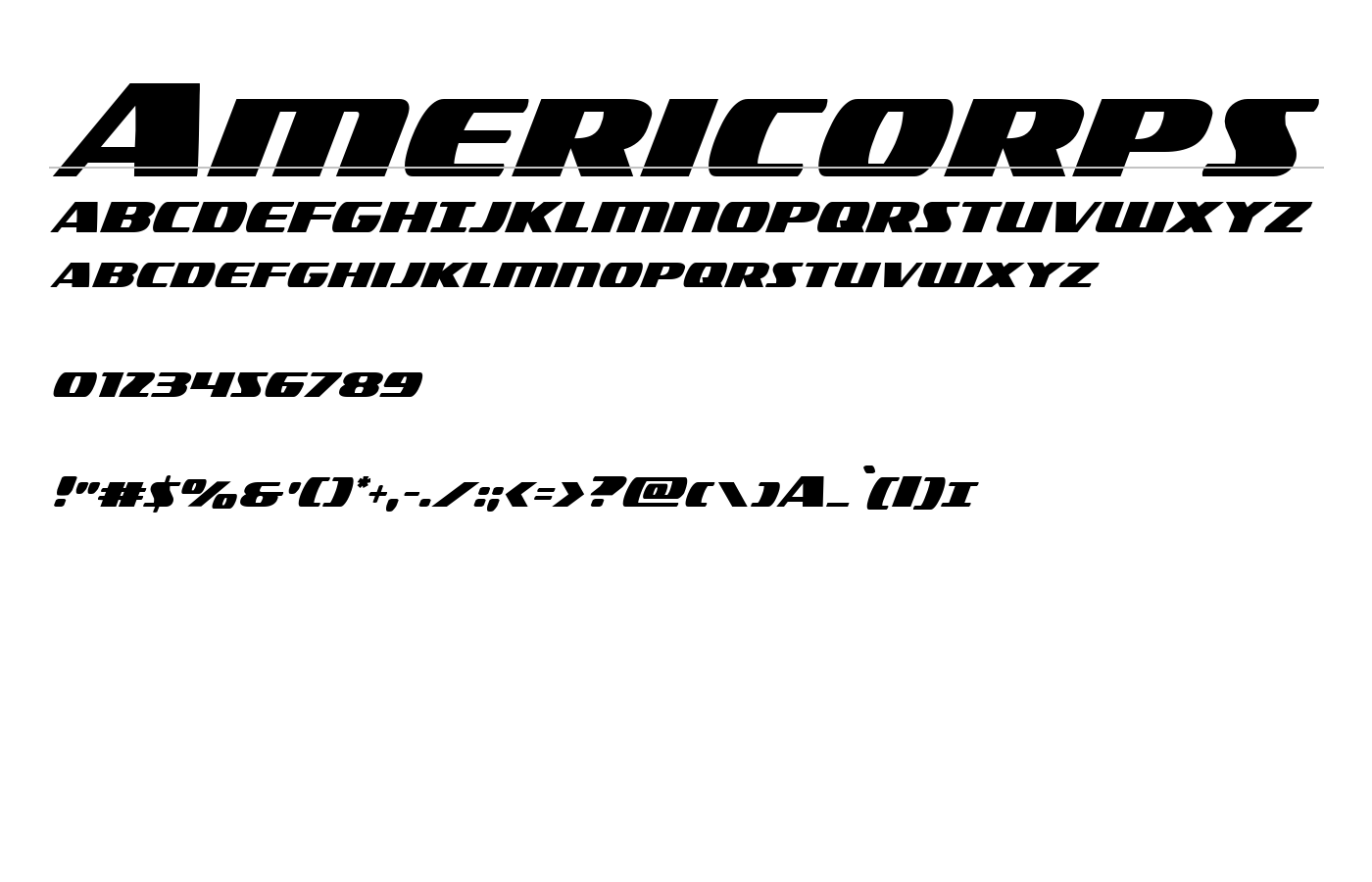
Americorps is a bold, condensed sans serif font with a strong, dynamic presence created by its italicized, slanted letterforms and sharp, geometric edges. Its high stroke contrast and tight spacing give it an energetic and modern feel, perfect for impactful headlines, logos, and branding that demand attention and convey strength and forward motion. This font works well for sports, technology, and automotive industries where a sense of speed and power is key.
Americorps Font
About Americorps Font